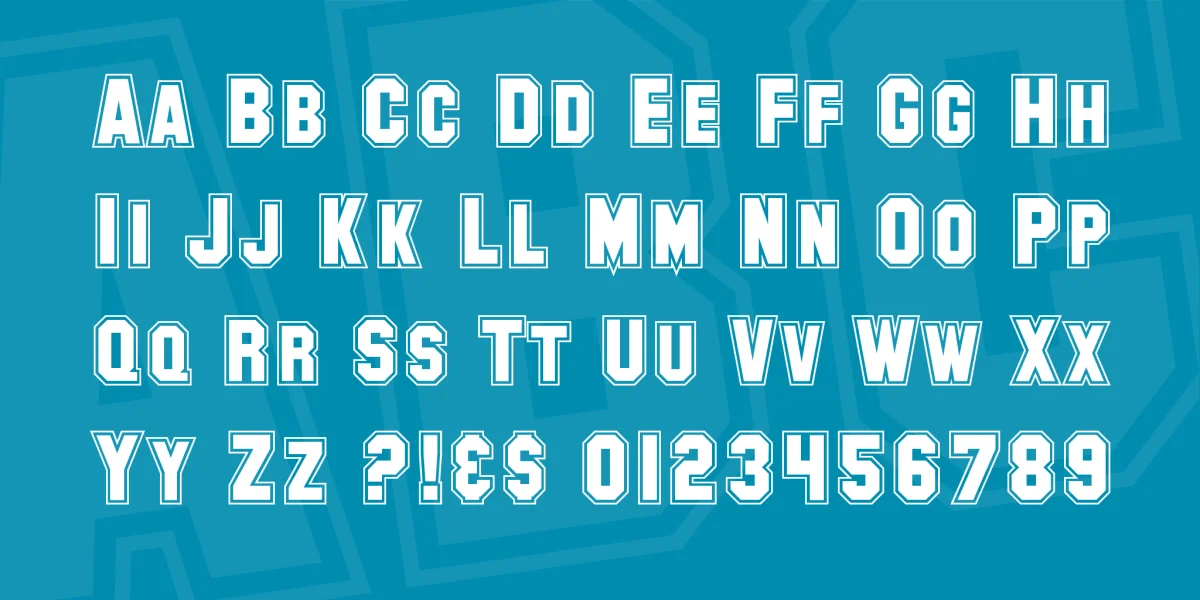
A scholarly typeface that captures the spirit of college life, SF Collegiate contains lowercase and uppercase letters, numbers, and a limited amount of punctuation.